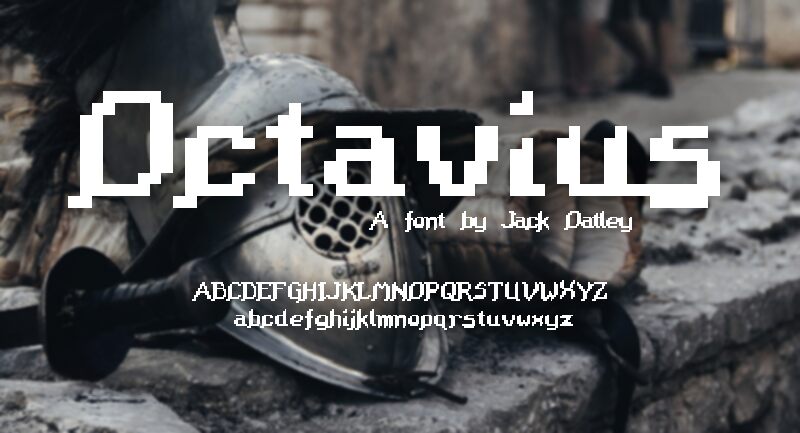
Octavius Joined
This font "Octavius" is created by Jack Oatley.
This font is inspired by the type in the game "The Settlers II", some characters are the originals and some have been edited or added. There are 2 versions here, a regualar one, and one with defined kerning to make the letters seem more "joined up".